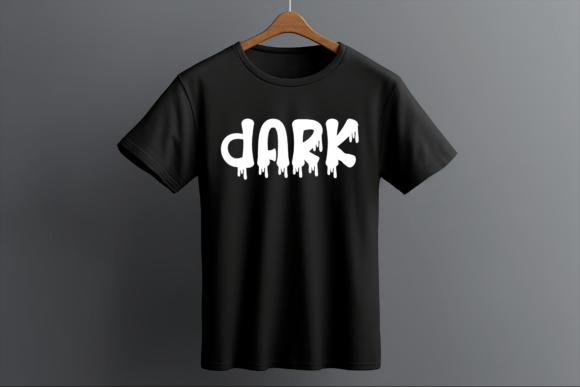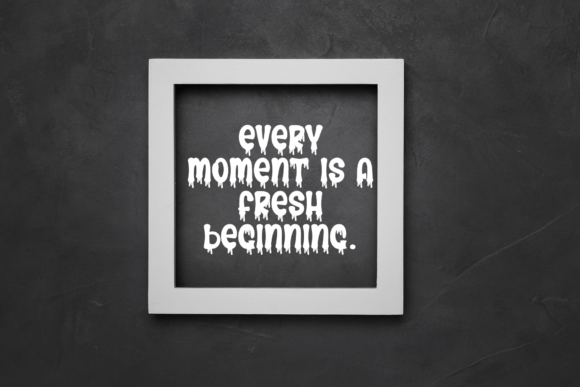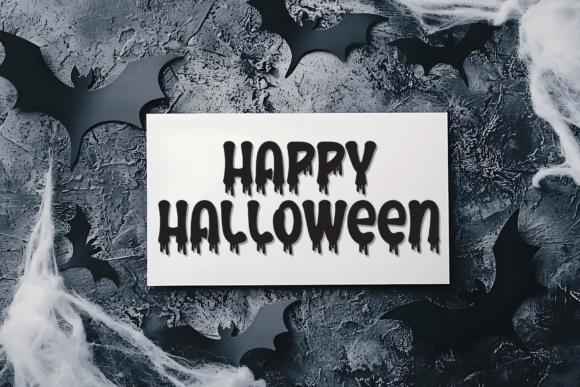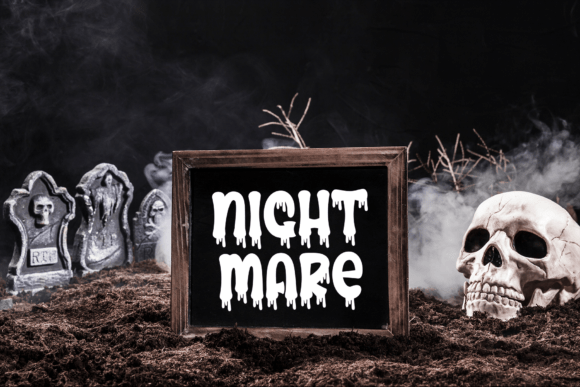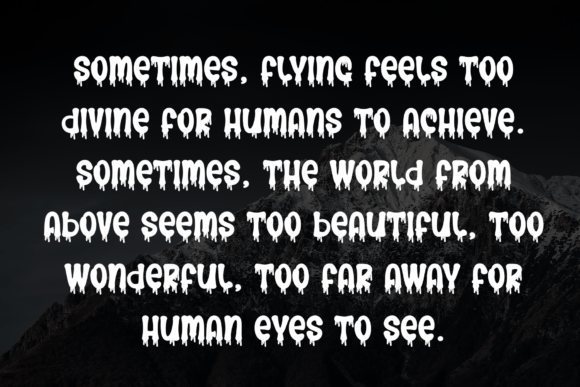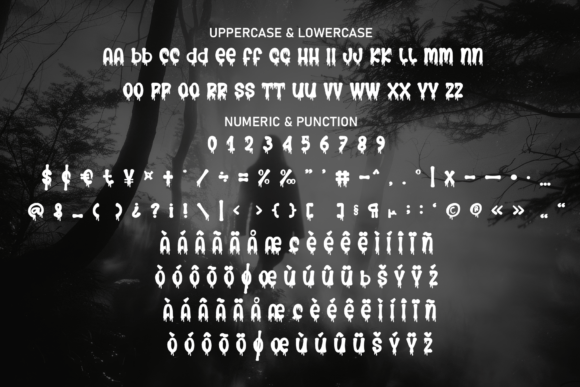
Unleash Your Creativity with Ghost Hunter Font
Are you tired of using the same old fonts for your creative projects? Look no further! Ghost Hunter Font is an incredibly unique display font that is sure to take your designs to the next level. Masterfully designed to become a true favorite, this font has the potential to bring each of your creative ideas to the highest level.
What Makes Ghost Hunter Font So Special?
Ghost Hunter Font is a one-of-a-kind display font that boasts a distinctive and eye-catching style. Its unique design elements make it perfect for a wide range of creative projects, from bold headlines and titles to eye-catching posters and flyers. The font’s masterful design ensures that it will be a favorite among designers and crafters, providing a go-to solution for adding a touch of elegance and sophistication to any project.
Key Features of Ghost Hunter Font
- Unique Display Font: Ghost Hunter Font is a truly unique display font that is sure to make your designs stand out from the crowd.
- Masterful Design: The font’s masterful design ensures that it is both visually appealing and highly legible.
- High Versatility: Ghost Hunter Font is perfect for a wide range of creative projects, from bold headlines and titles to eye-catching posters and flyers.
- Elegant and Sophisticated: The font’s elegant and sophisticated style makes it perfect for adding a touch of refinement to any project.
How to Use Ghost Hunter Font in Your Designs
Ghost Hunter Font is incredibly easy to use and can be incorporated into your designs in a variety of ways. Here are a few ideas to get you started:
- Headlines and Titles: Use Ghost Hunter Font to create bold and eye-catching headlines and titles that are sure to grab attention.
- Posters and Flyers: Add a touch of elegance and sophistication to your posters and flyers with Ghost Hunter Font.
- Logos and Branding: Use Ghost Hunter Font to create unique and memorable logos and branding elements that will help your business stand out.
- Social Media Graphics: Add a touch of style and sophistication to your social media graphics with Ghost Hunter Font.
Tips and Tricks for Getting the Most Out of Ghost Hunter Font
Here are a few tips and tricks for getting the most out of Ghost Hunter Font:
- Experiment with Different Sizes: Don’t be afraid to experiment with different font sizes to find the perfect fit for your design.
- Play with Color: Try out different color schemes to find the perfect combination that complements your design.
- Mix and Match: Don’t be afraid to mix and match Ghost Hunter Font with other fonts to create a unique and eye-catching design.
Ghost Hunter Font is an incredibly unique and versatile display font that is sure to take your designs to the next level. With its masterful design, elegant style, and high versatility, this font is perfect for a wide range of creative projects. Whether you’re a designer, crafter, or DIY enthusiast, Ghost Hunter Font is a must-have addition to your font collection.
- Is Ghost Hunter Font easy to read? Yes, Ghost Hunter Font is highly legible and easy to read, making it perfect for use in a wide range of creative projects.